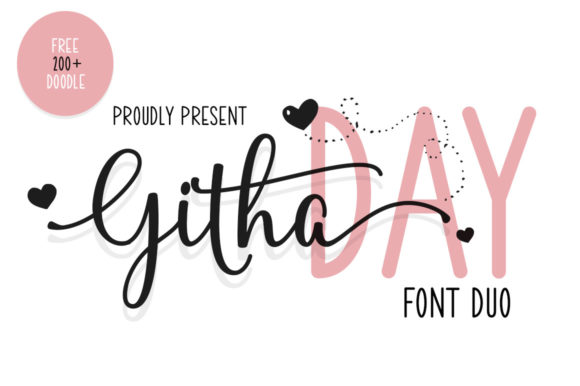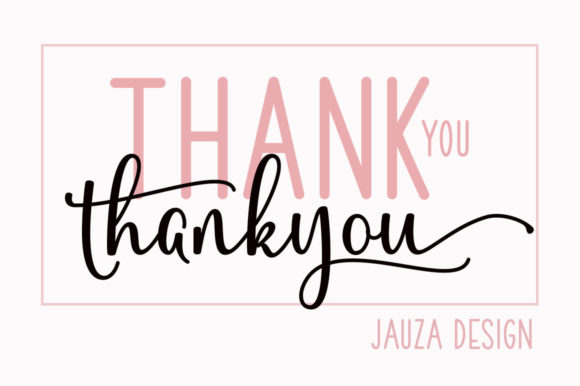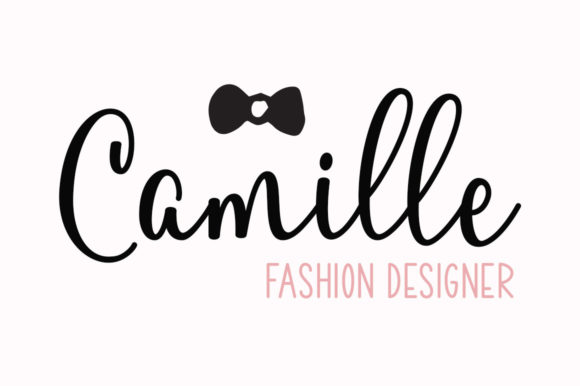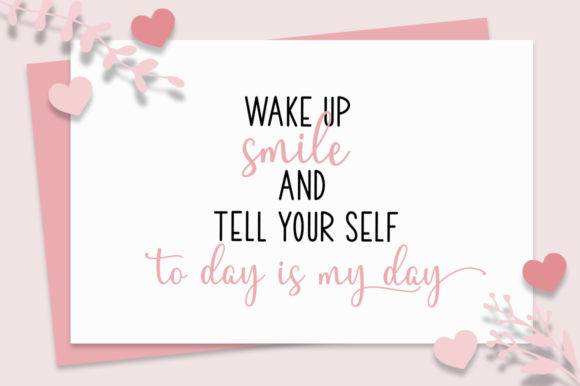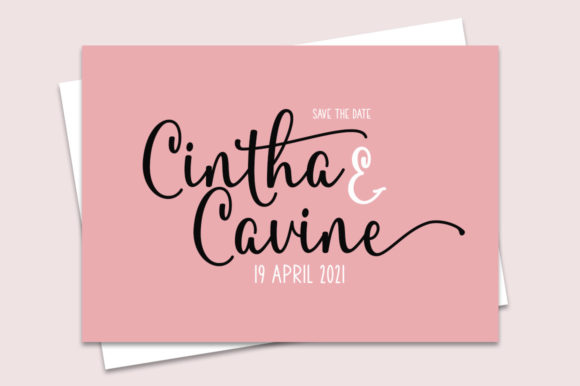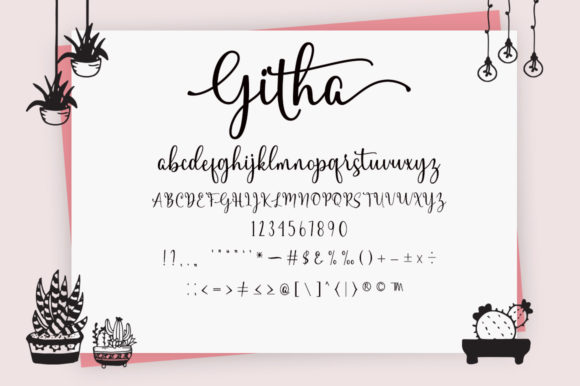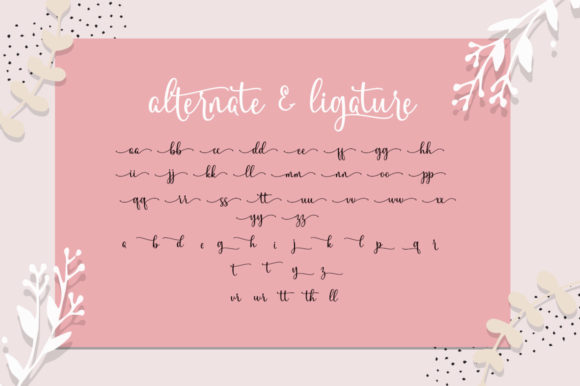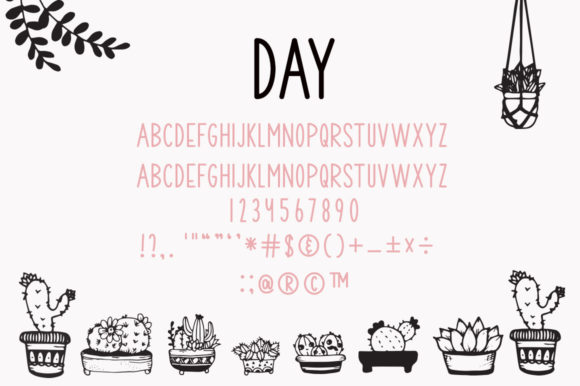
Githa Day Font
About Githa Day Font
Githa Day is an elegant and dainty duo styled handwritten font, that features sweet and delicate swashes. This original look will appeal to a wide range of crafty ideas, from letterheads and titles, to stationery.